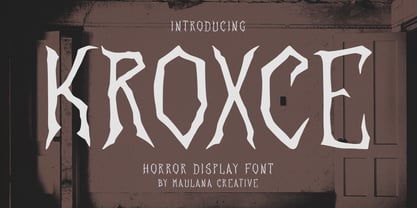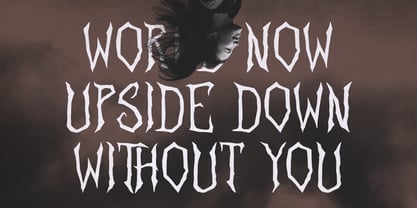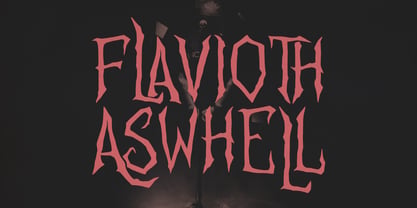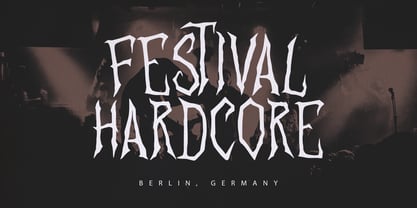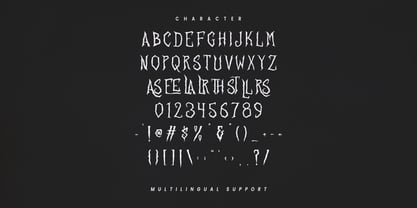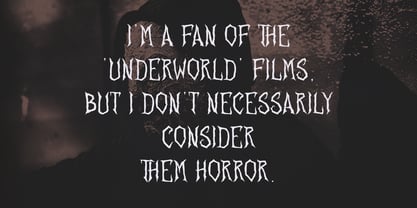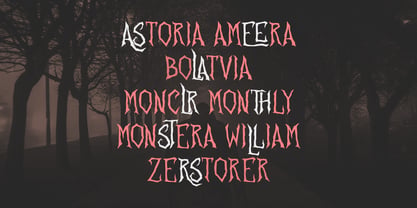
MC Kroxce
por Maulana Creative
La familia tipográfica MC Kroxce fue diseñada por Gilang Maulana y publicada por Maulana Creative. MC Kroxce contiene 1 estilos. Más información sobre esta familia
Kroxce is a Horror Vibe Decorative display font. With Bold Sharp stroke, Upright and fun character with a bit of ligatures. To give you an extra creative work. Kroxce font support multilingual more than 100+ language. This font is good for logo design, Social media, Movie Titles, Books Titles, a short text even a long text letter and good for your secondary text font with Script. Make a stunning work with Kroxce font.
Diseñadores: Gilang Maulana
Fundición: Maulana Creative